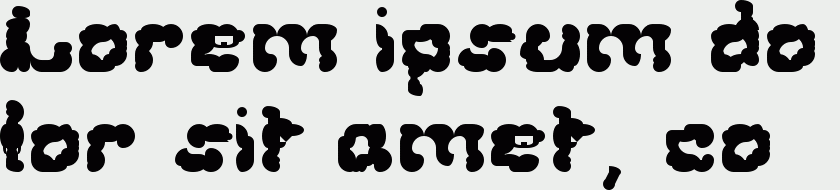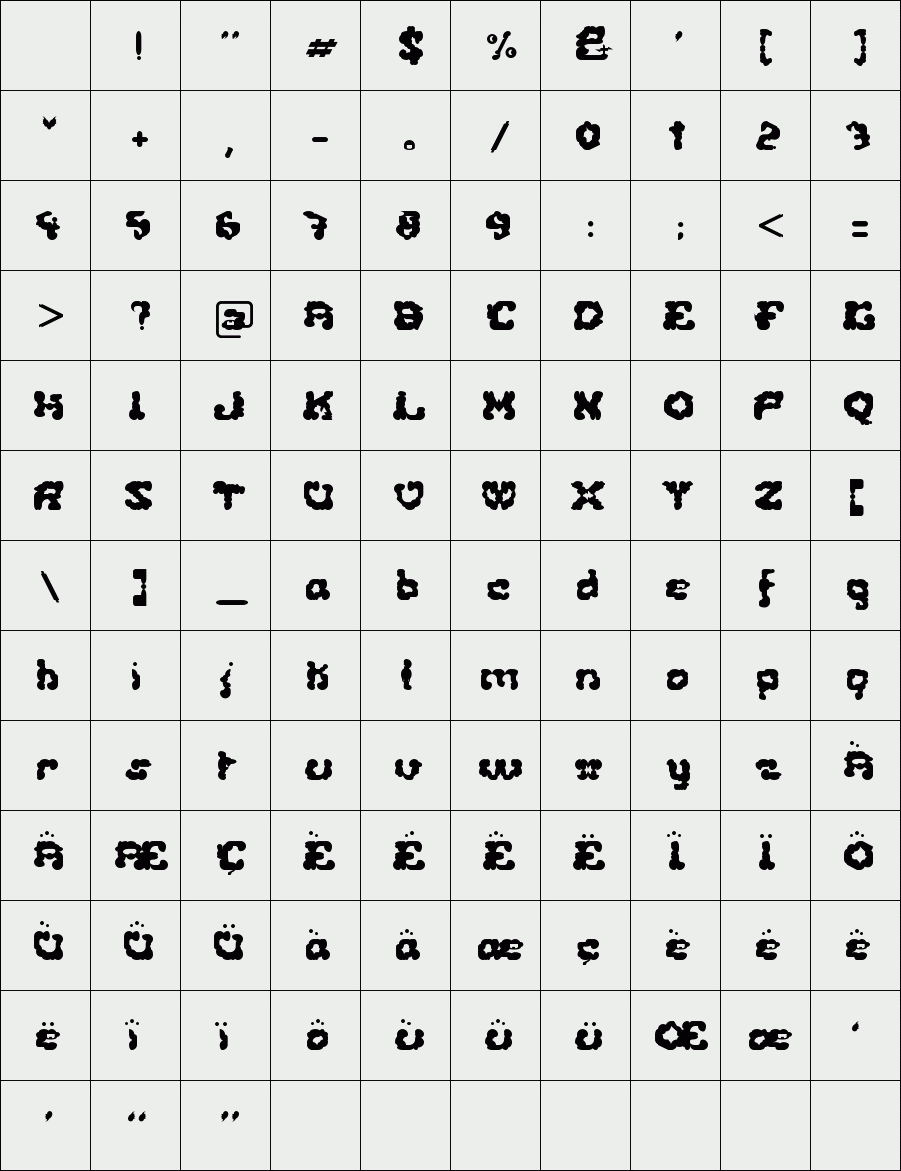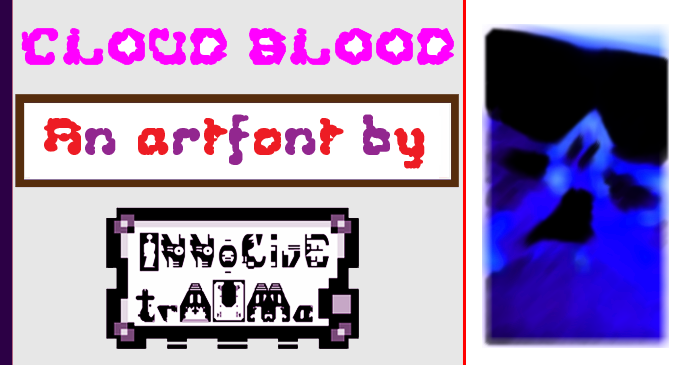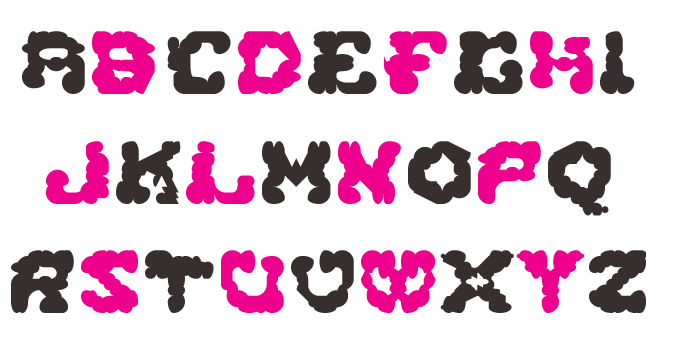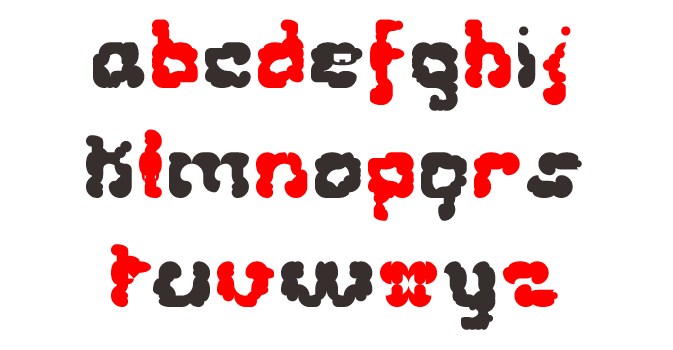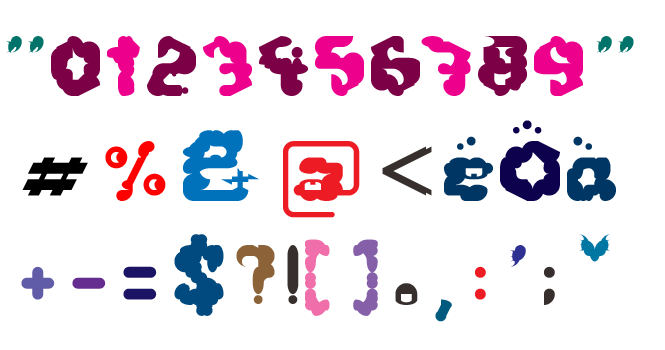
trAUMa 94 / Cloud Blood
"Cloud Blood", like all the "trAUMa" series, works at the frontier between Art & Type Design, Figuration & Abstraction, each font is a comprehensive world in which every glyph is a "living" entity. But put together they can produce your messages in the most accurate way.